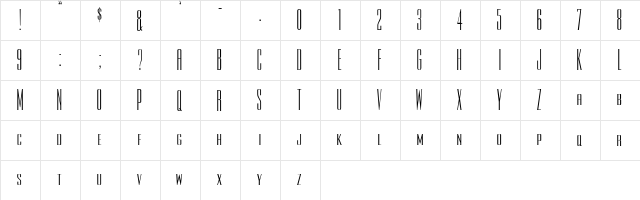
Rothman Regular
Design Context for Rothman Typeface
Rothman offers clean, dependable letterforms without strong stylistic allegiance, making it a practical choice for designers who need flexibility.
Pro Tip: Use Rothman in both headline and body roles to test its range before committing to a single application.